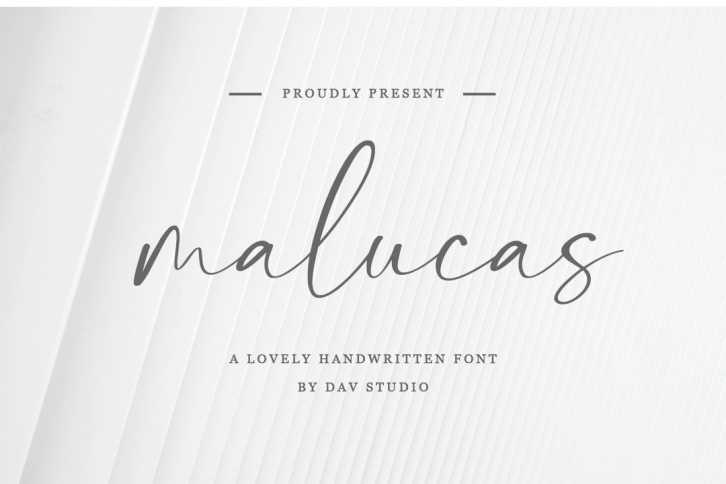
malucas is a beautiful font that was designed by Dav studio. It's a great choice for designers and creatives who need such a font. It was released on July 16, 2020 and the file size is 13.46 MB. malucas may give a more youthful, expressive and casual look to your project. It is a very beautiful, refined, elegant, and high-quality font.